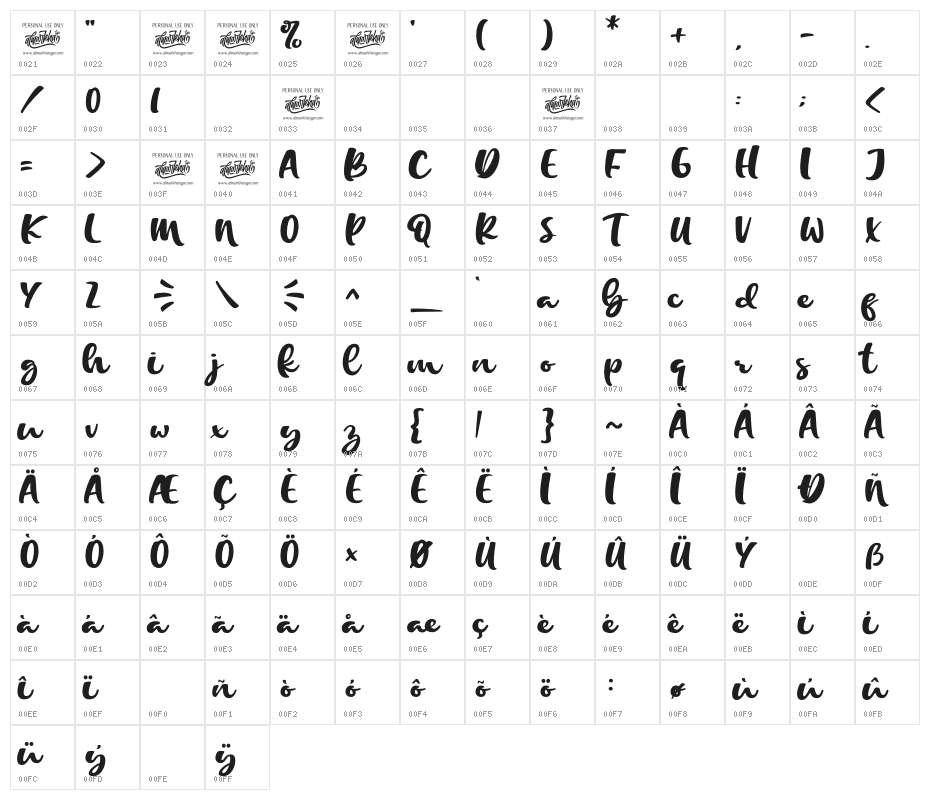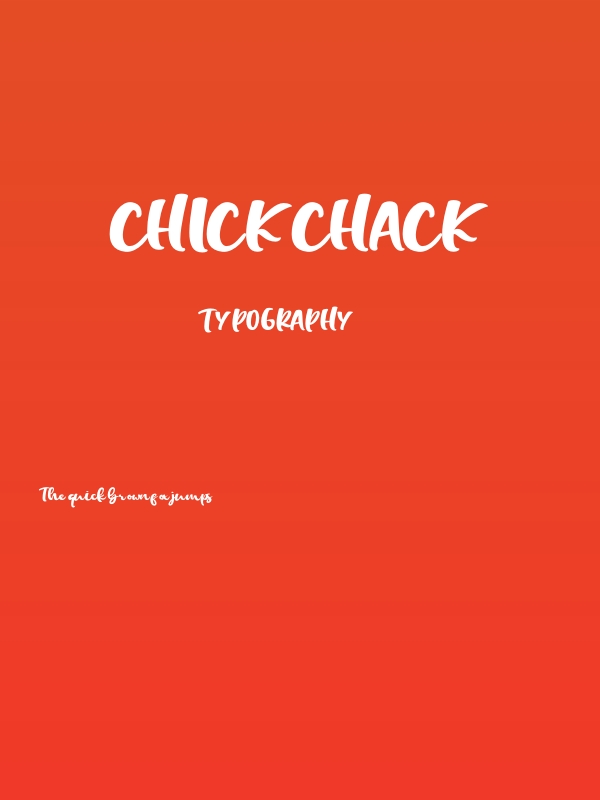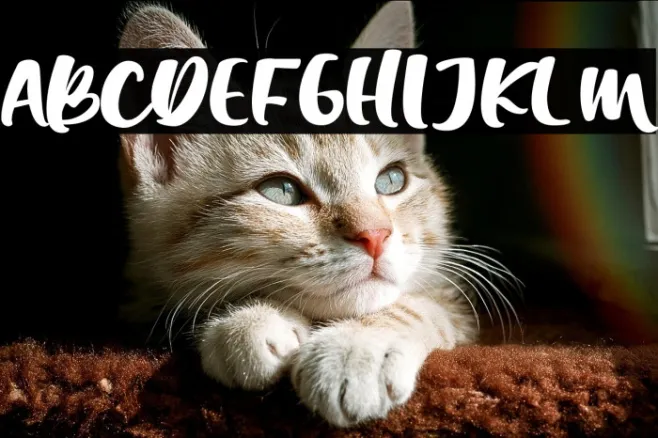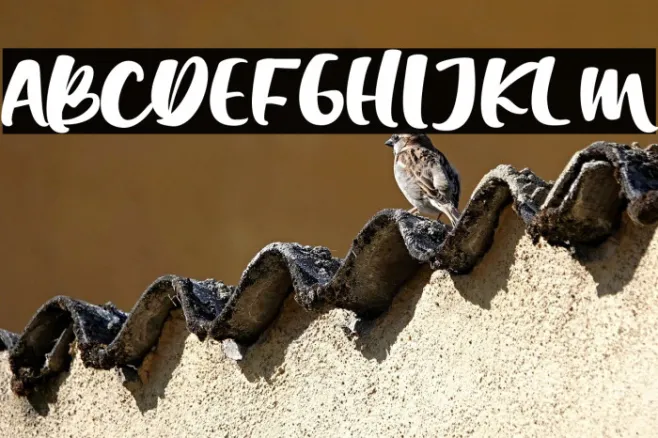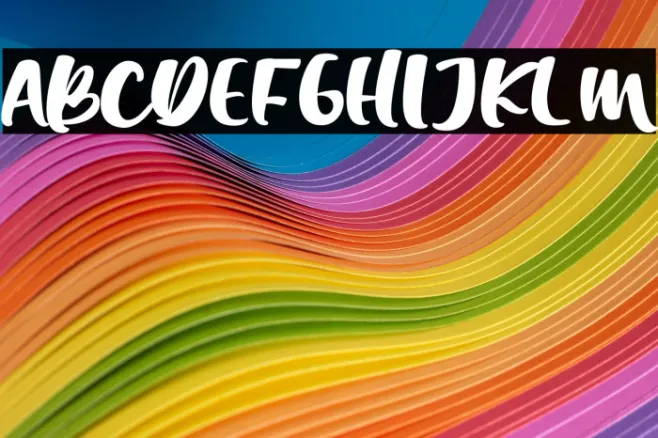
Chick Chack Font
Chick Chack Description
This font features a bold, expressive style with a handwritten feel. The uppercase letters are robust and dynamic, with a playful yet sophisticated flair. The lowercase letters maintain a consistent flow, enhancing the font's overall fluidity. The numbers and special characters are designed to match the energetic style of the alphabet, making them suitable for creative and artistic projects. The font's unique character is emphasized by its thick strokes and smooth curves, making it stand out in any design.
| Proposed Projects | Ideal for branding, logos, invitations, and social media graphics where a personal touch is desired. |